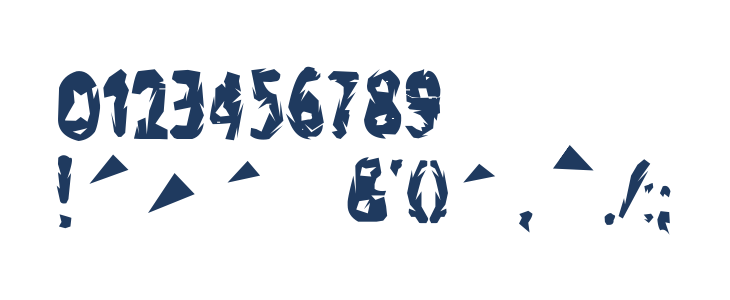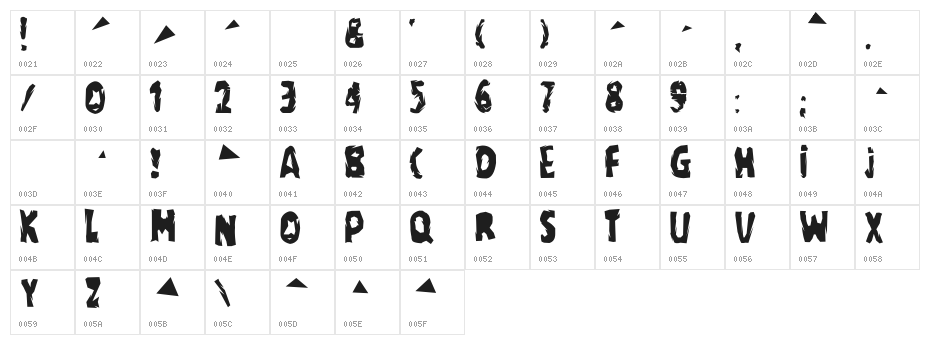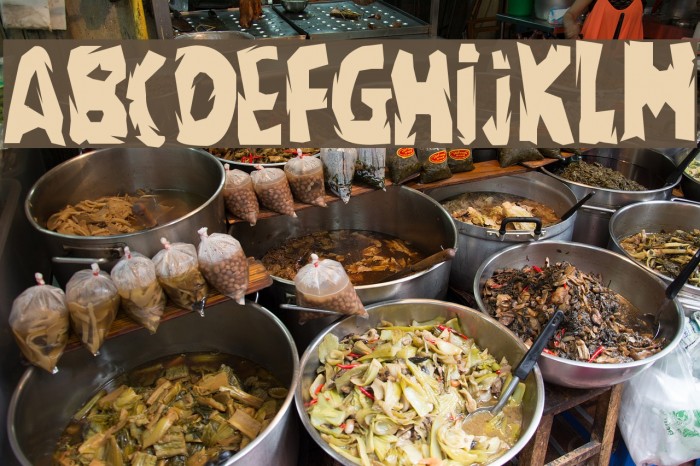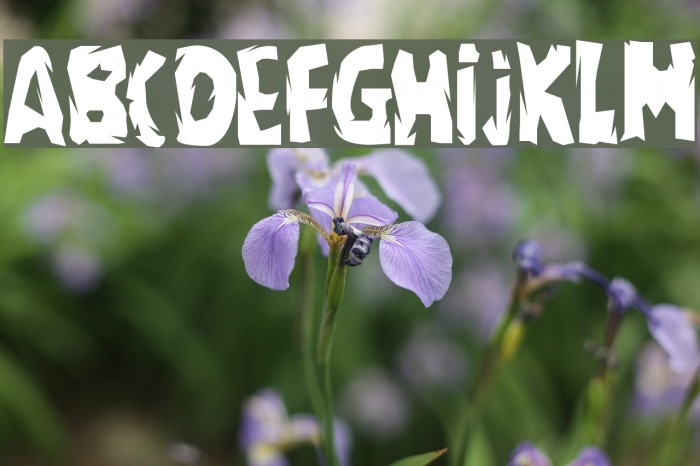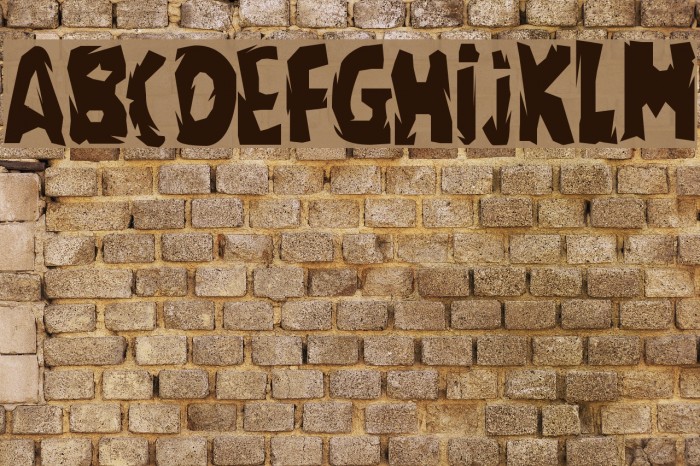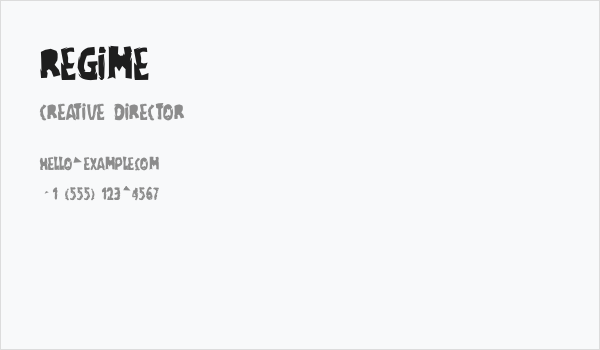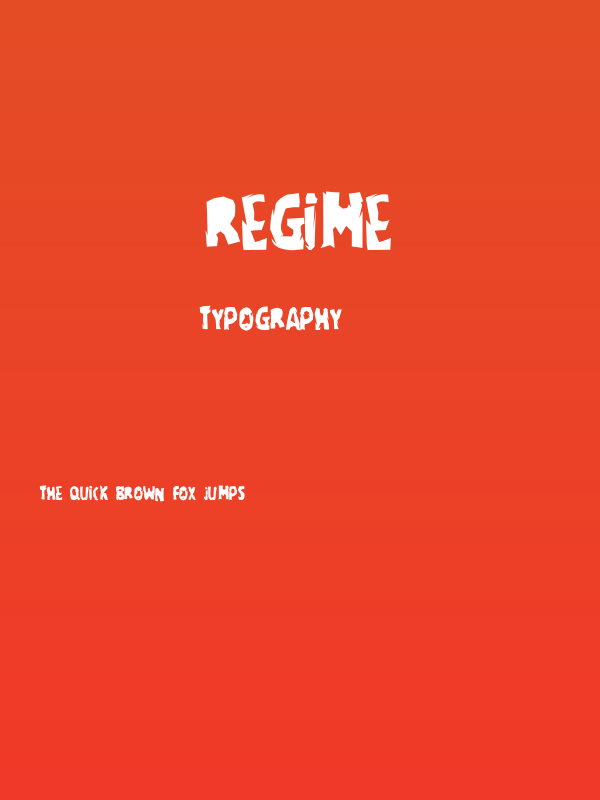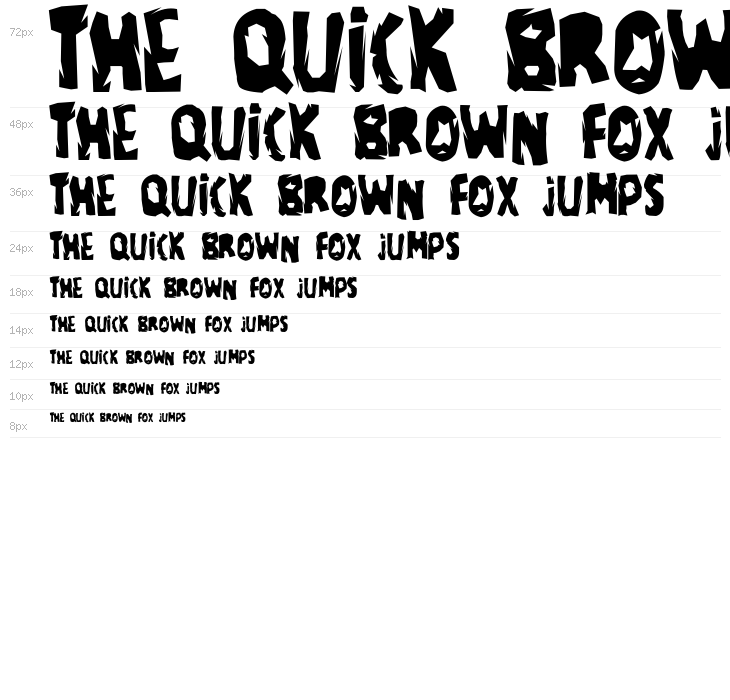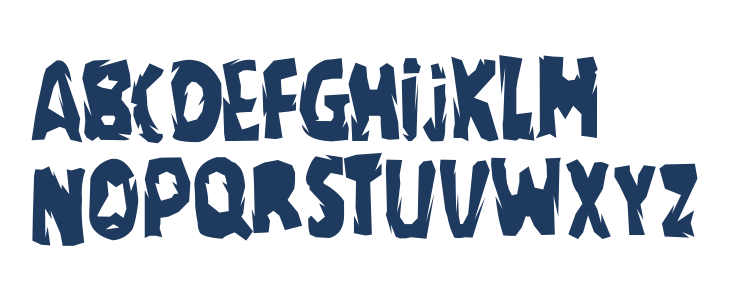
regime Font
regime Description
This font features a bold and aggressive style with jagged, angular edges that create a sense of movement and energy. The characters are heavily stylized, with sharp cuts and irregular shapes that give it a dynamic and chaotic appearance. This design is reminiscent of graffiti or urban street art, making it stand out with its unique and edgy look. The uppercase and lowercase letters maintain a consistent theme, with numbers and special characters following the same aesthetic. The font's distinctiveness makes it ideal for projects that require a strong visual impact.
Overall StyleModern, Urban
Proposed ProjectsIdeal for album covers, posters, streetwear branding, and urban-themed designs.